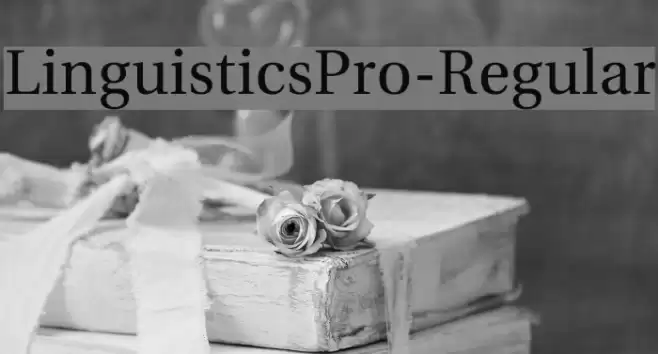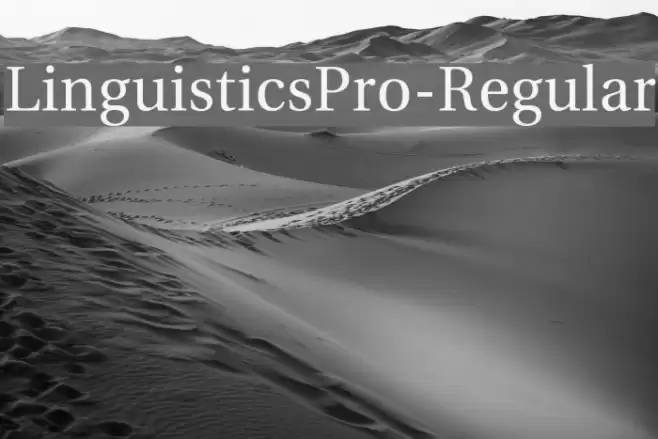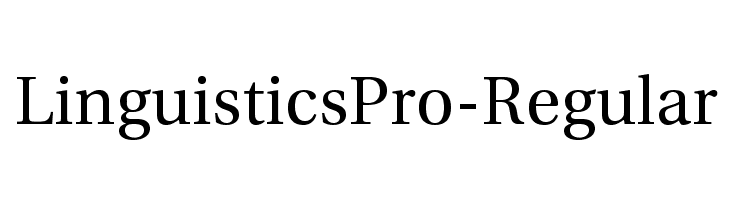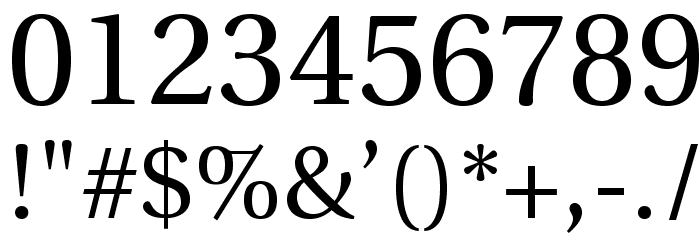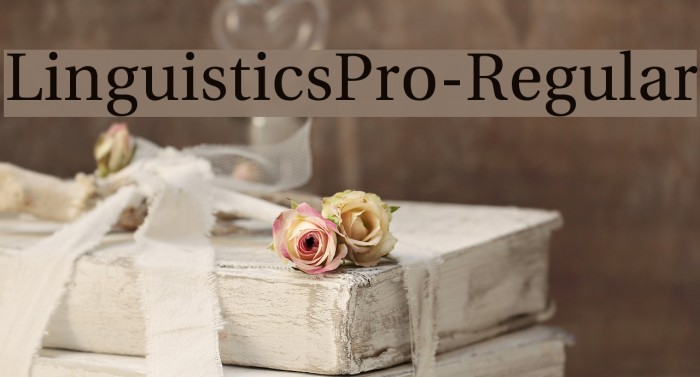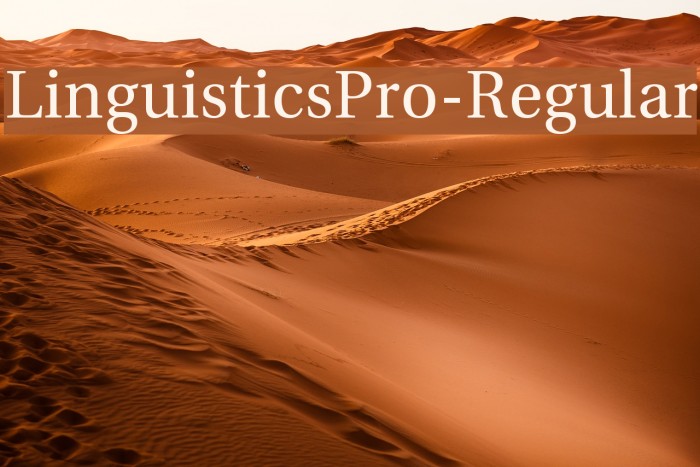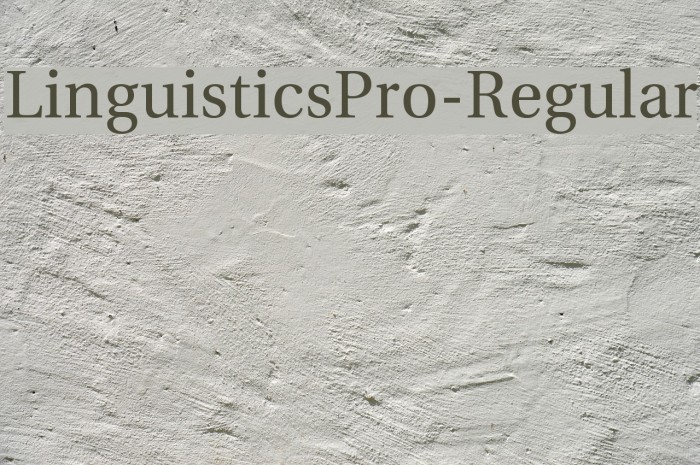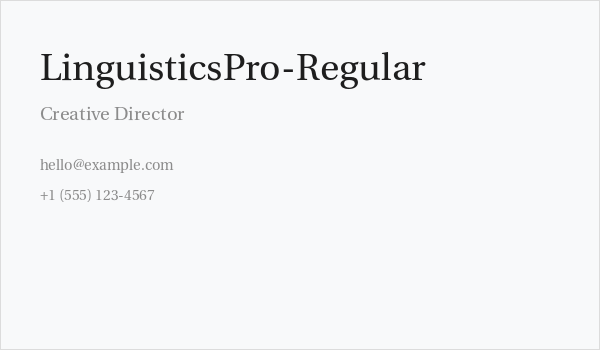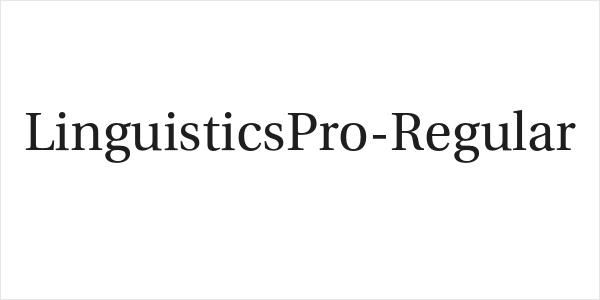
LinguisticsPro-Regular Font
LinguisticsPro-Regular Description
This typeface features a classic serif design with a refined and elegant appearance. The characters exhibit a balanced proportion with slightly elongated ascenders and descenders, contributing to a sophisticated look. The serifs are well-defined, providing a traditional feel while maintaining readability. The font showcases a medium contrast between thick and thin strokes, enhancing its legibility and aesthetic appeal. It includes a full set of uppercase and lowercase letters, numerals, and a variety of punctuation marks and special characters, making it versatile for various applications.
A refined serif typeface with balanced proportions and medium contrast, ideal for elegant designs from Uncategorized fonts.
- Proposed Projects: Suitable for editorial design, book publishing, formal invitations, and branding projects that require a touch of elegance.
- Overall Style: Classic
- Use Case: Editorial design, Formal invitations, Branding